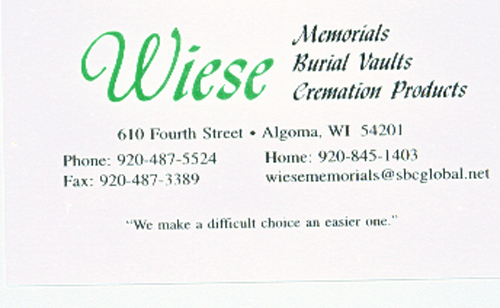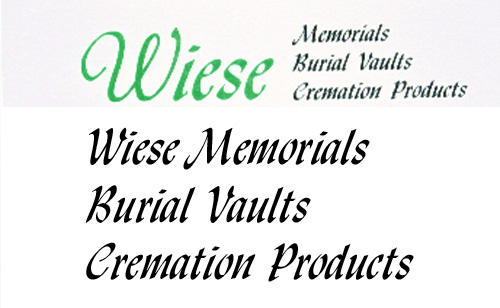
Font help!
Does anybody recognize this font? The font in question is the one used in "Wiese". Anybody?
All the text in question is set in Lydian Cursive except the "W". That gets identified in my database as your choice of either Adobe Garamond Swash MM or Adobe Jenson Swash MM. Adobe has abandoned the Multiple Master technology and no longer offers those fonts, so your best bet for the "W" is to hand trace it.
Fred, out of curiosity do you know why Adobe quit with the Multiple Master fonts? I used them alot - and still have several on floppies that I purchased - they were ideal for the jobs that you almost had to stretch or squeeze the type for. You know, like "can you fit this 72 point headline in a one inch space?"
I think it's because it caused so many postscript imagesetters, printers to choke. Not choke/spread but choke as in output courier text. I took something to Kinko's once and their ps laser would not print anything on my page using MM fonts. I replaced them with regular ps fonts and everything was ok.
I agree with renfro regarding the imagesetter issues but also think it may have had something to do with both the Open Type standard and the fact that Adobe Type Manager was being phased out.
It may have also irked more than a few type afficianados that Adobe was encouraging customers to tinker with the type instead of selecting type to fit the situation.
We didn't have any problems on our Linotronic Imagesetters (330 and 600) with multiple masters - didn't really output to anything else since I worked at a place called "Linotronic Service Bureau" but I know what you mean on choking the RIP. Onyx and the system font Chicago would stop 'em every time.